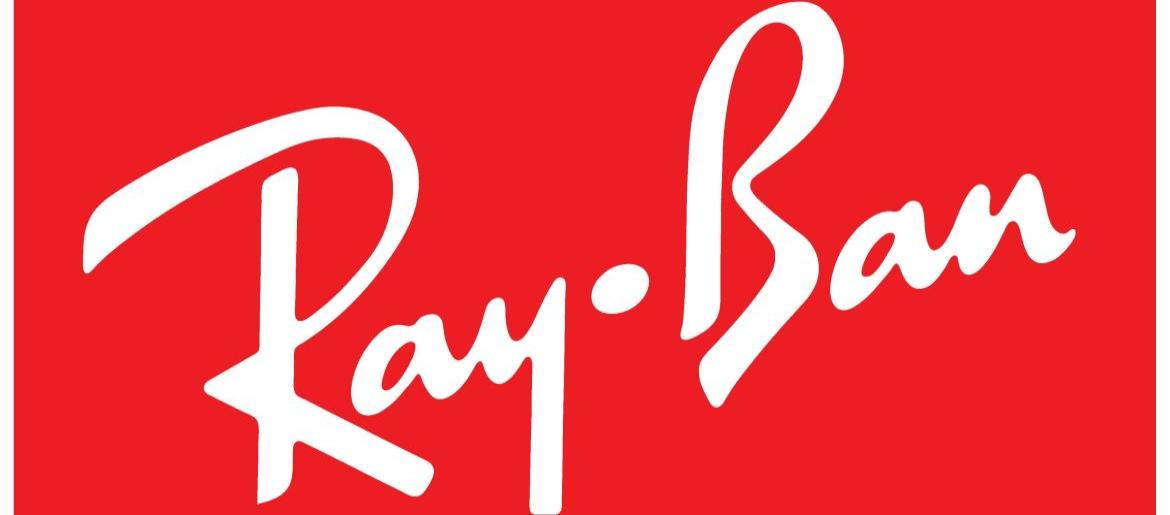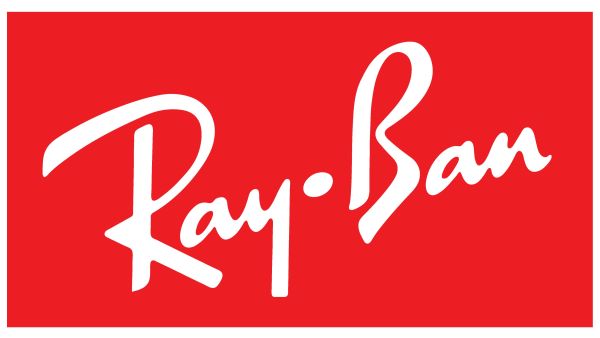
Ray-Ban Font
What Font is Ray-Ban?
The Ray-Ban font is based on a fully custom-designed script logo that has been used for decades, giving the brand its instantly recognizable handwritten flair. Since the original lettering is not an actual typeface, there’s no perfect match. However, we found two commercial script fonts (Suave Script Pro Bold and Cuisine Pro) that share a similar flow and retro brush-style aesthetic. For those who prefer not to purchase a commercial license, we also located a free alternative font that captures the same expressive, signature-like vibe of the Ray-Ban logo.
About Ray-Ban
Ray-Ban is a legendary eyewear brand founded in 1936 by Bausch & Lomb, originally created for U.S. Army Air Corps pilots. The company later introduced iconic designs like the Aviator, Wayfarer, and Clubmaster, shaping global eyewear trends for generations. Known for its blend of craftsmanship, cultural influence, and timeless cool, Ray-Ban has appeared throughout film, music, and pop culture, securing its status as one of the most recognizable eyewear brands in the world.